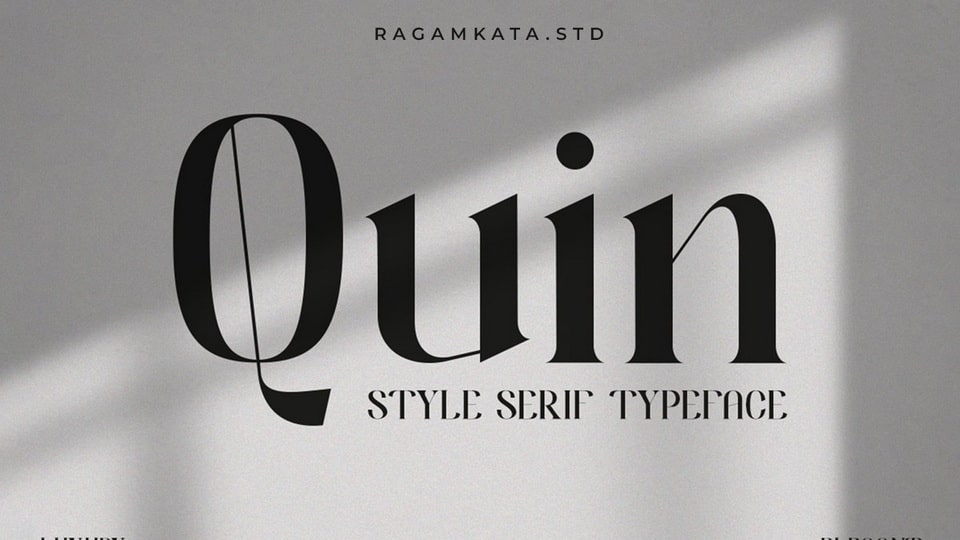
Download Quin font, a stunning serif typeface that lives for being the center of attention. Use this classic, refined serif for large-scale headers, big text moments, or gorgeous quotes.